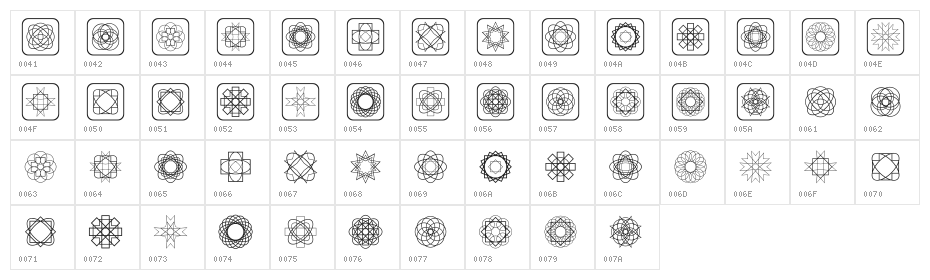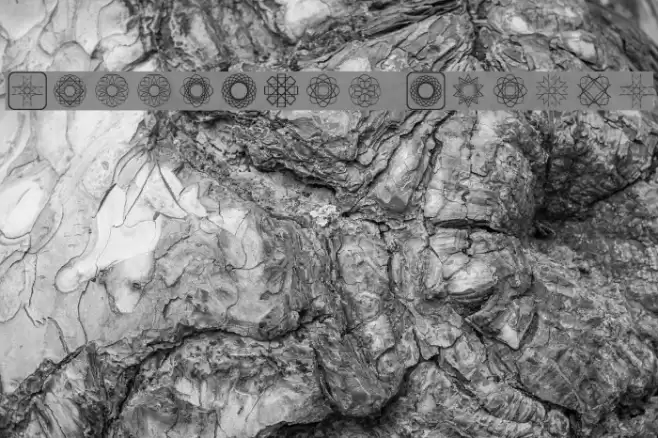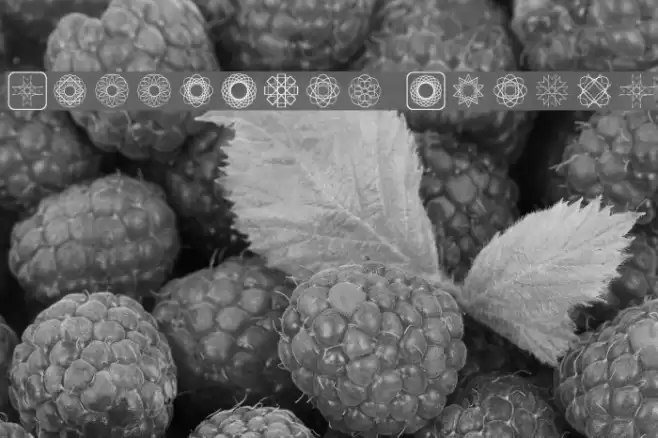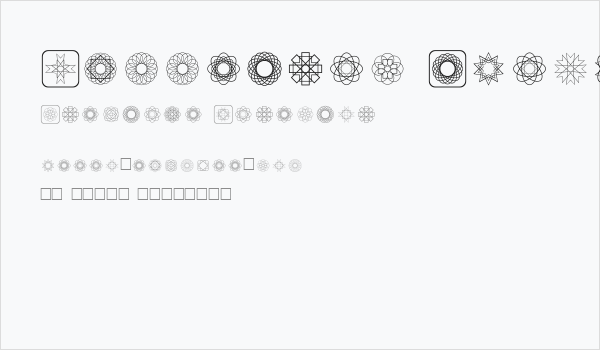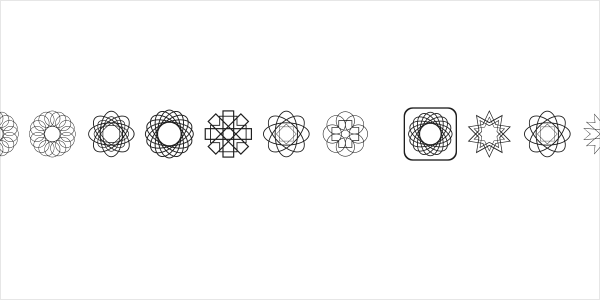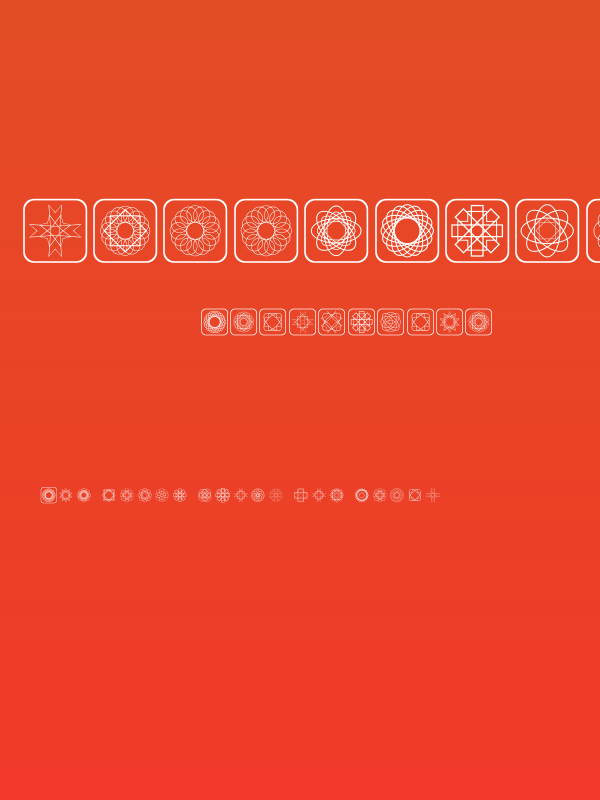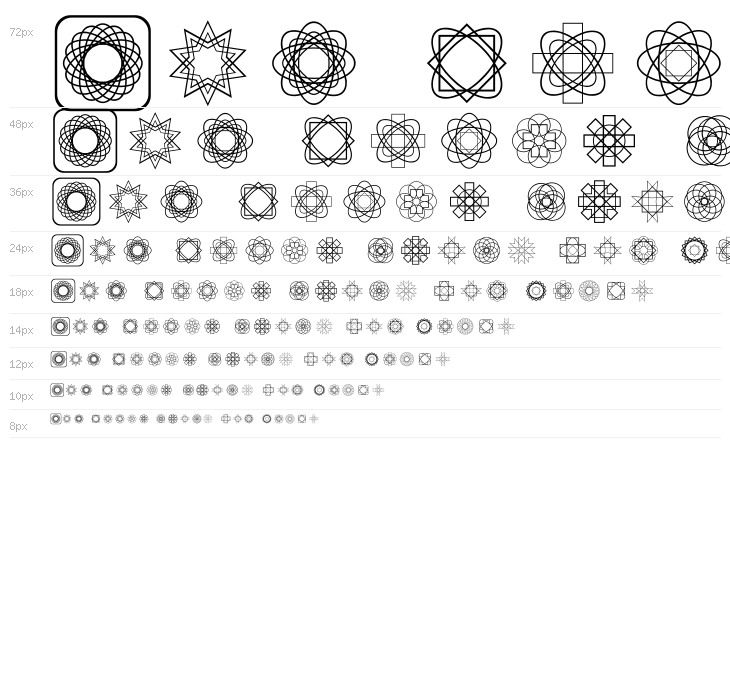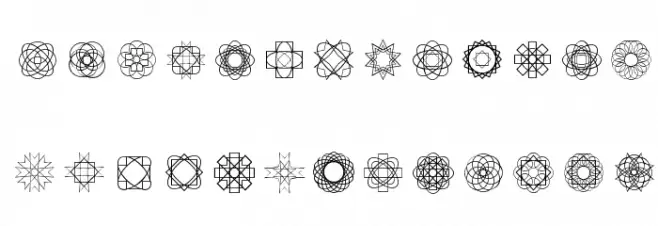
Symmetric Things Font
Symmetric Things Description
A decorative set of geometric, symmetric icons with intricate line patterns, each enclosed in a square or presented standalone. The designs are highly ornamental, featuring radial symmetry, overlapping shapes, and mandala-like forms. The set includes both filled and outlined squares, with some rows displaying only empty squares.
| Overall Style | Decorative, Modern, Geometric |
| Use Case | Logos, Icons, Decorative elements |
| Proposed Projects | Branding, logos, app icons, decorative dividers, packaging, digital stickers, pattern design. |